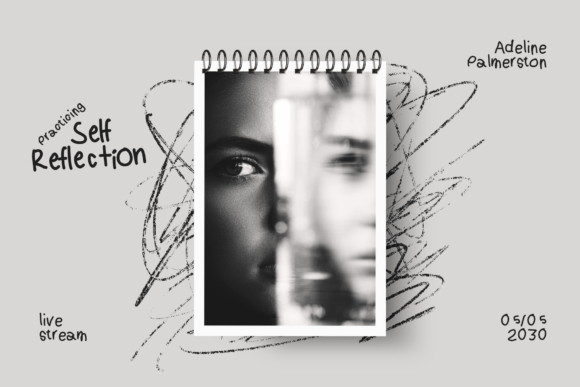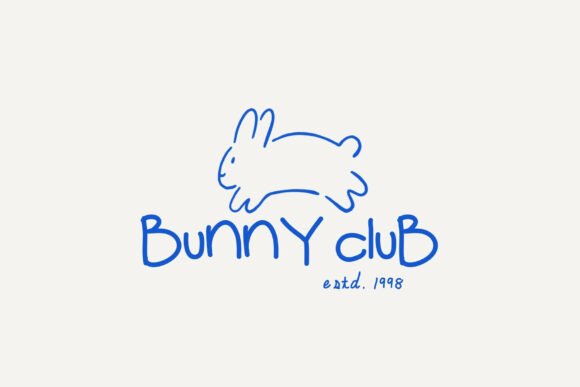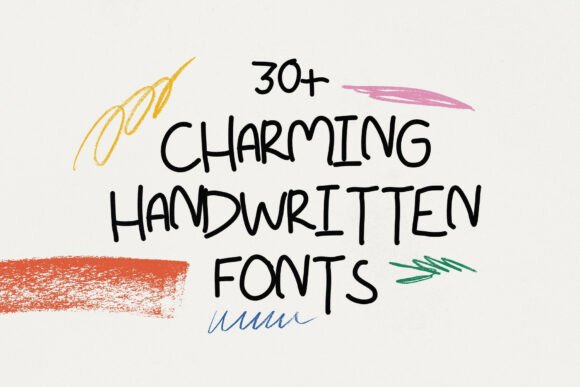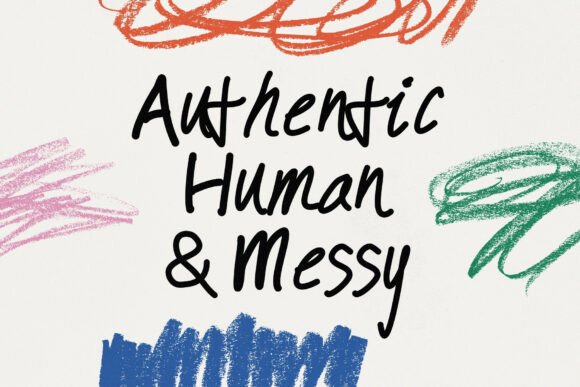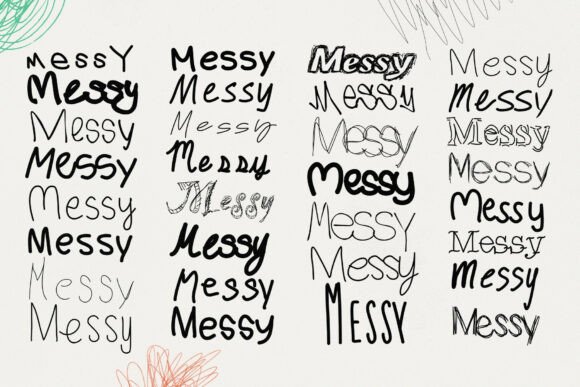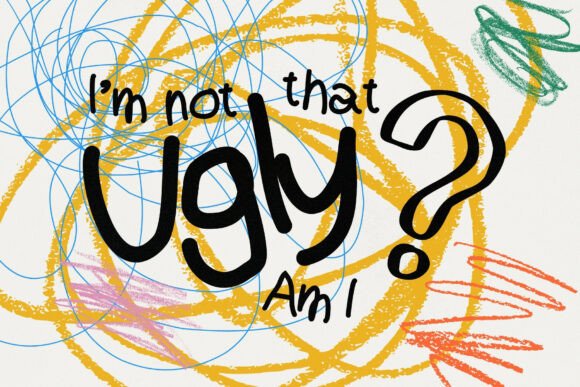
Introduction to Messy Type Bundle Font
Have you ever stared at a blank canvas, searching for the perfect font to bring your creative project to life? The frustration is real, but what if I told you there’s a way to break free from the monotony of perfectly polished fonts and tap into the raw emotion and humanity of authentic, handcrafted typography? Introducing The Messy Type Bundle Font – a game-changing design resource that’s about to revolutionize the way you approach your next creative project.
Imagine having access to 30 unique, high-quality fonts that celebrate the beauty of imperfection, spontaneity, and genuine human creativity. From expressive handwritten scripts to rough serifs and messy marker fonts, this bundle is packed with authentic, one-of-a-kind typefaces that will add a touch of personality and emotion to your designs.
With The Messy Type Bundle Font, you’ll be able to create designs that feel truly alive and connected – perfect for branding, posters, packaging, and more. And the best part? This incredible collection is available for free download, making it an absolute must-have for any serious designer looking to elevate their work and stand out in a crowded industry.
Honest Review: Messy Type Bundle Font
As a designer, I’m always on the lookout for new design resources to enhance my creative projects. The Messy Type Bundle Font caught my attention with its promise of high-quality, unique typography. After using it in a recent project, I wanted to share my honest review.
What works well: ✨ The font bundle offers a wide range of styles, from clean and minimalist to bold and playful. The transparent background feature allows for seamless integration with any design element, making it a great design resource. I particularly enjoyed using the font for a recent branding project, where its unique character added a touch of personality.
What doesn’t work so well: ⚠️ The font bundle is a free download, which can be both a blessing and a curse. While I appreciate the generosity, the quality of the font may not be on par with commercial offerings. I did experience some minor issues with font rendering, especially when used at small sizes.
Overall, I’d recommend the Messy Type Bundle Font for designers looking for a unique, high-quality typography solution. While it may not be perfect, its strengths far outweigh its limitations, making it a valuable addition to any design toolkit.